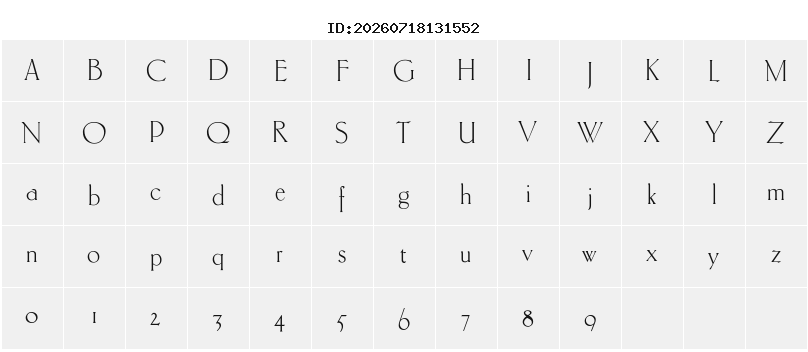
• Font Name: CarltonPlain
CarltonPlain.ttf is a modern, elegant sans-serif font designed for ultimate readability and visual harmony. Perfect for branding, headlines, web design, and print materials.